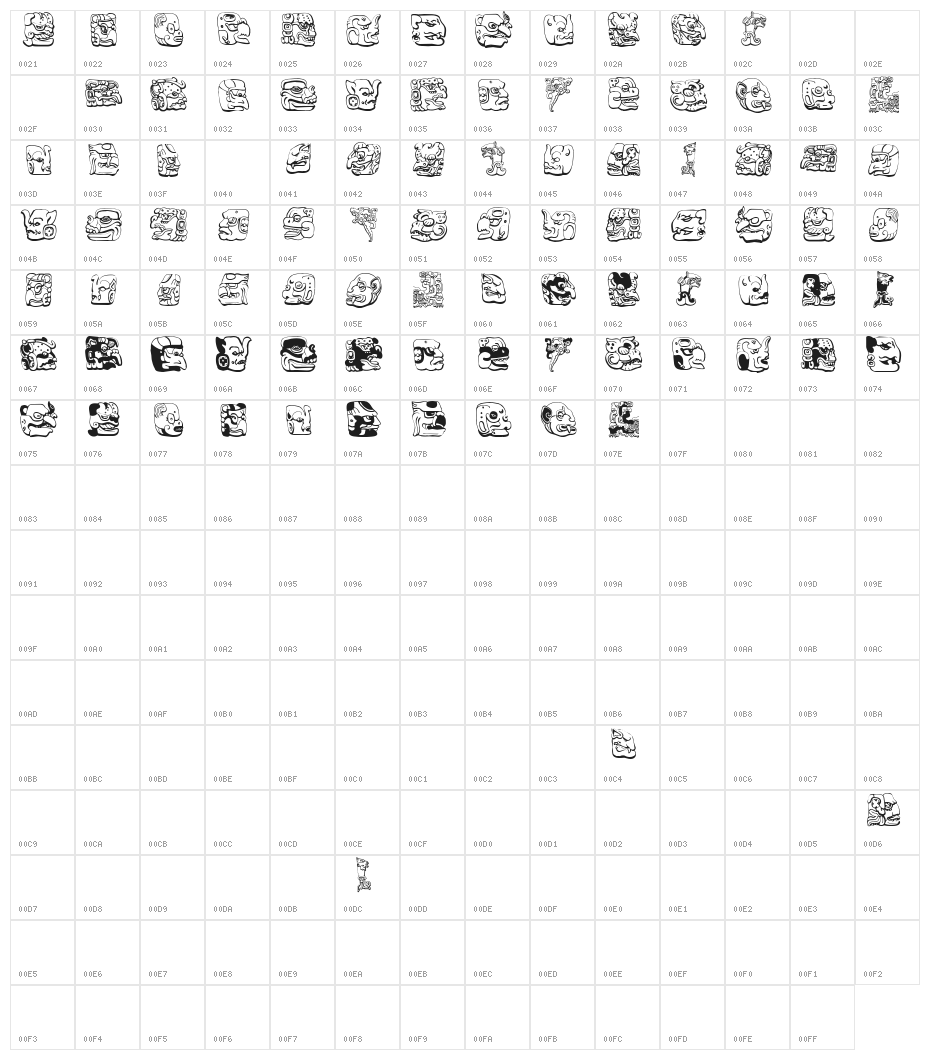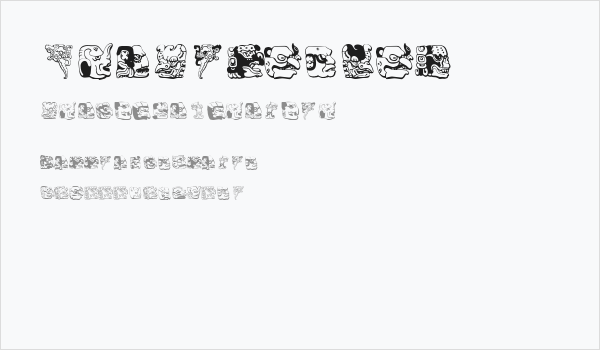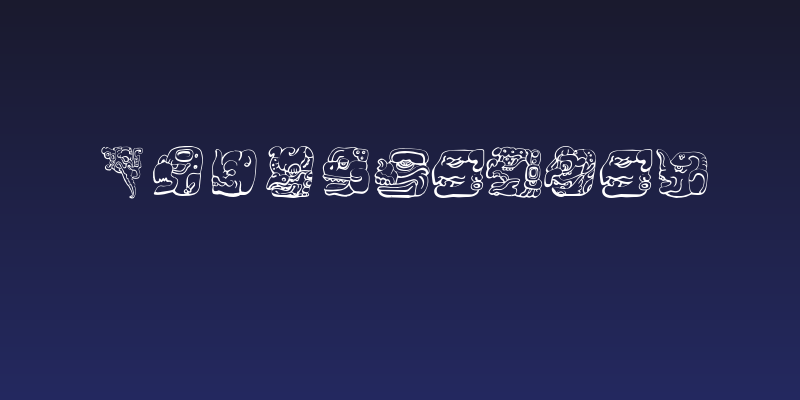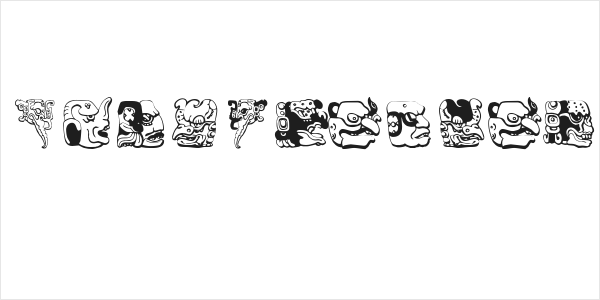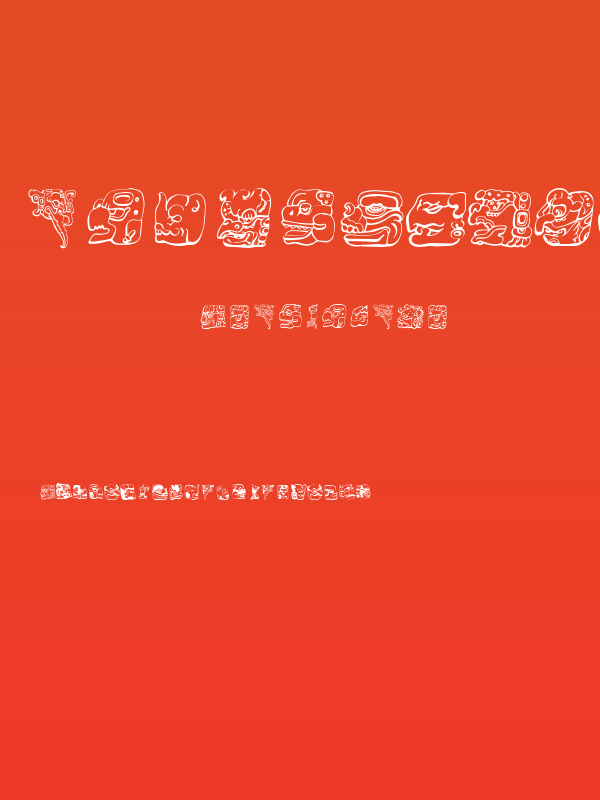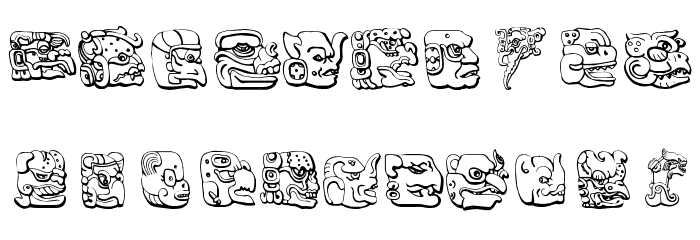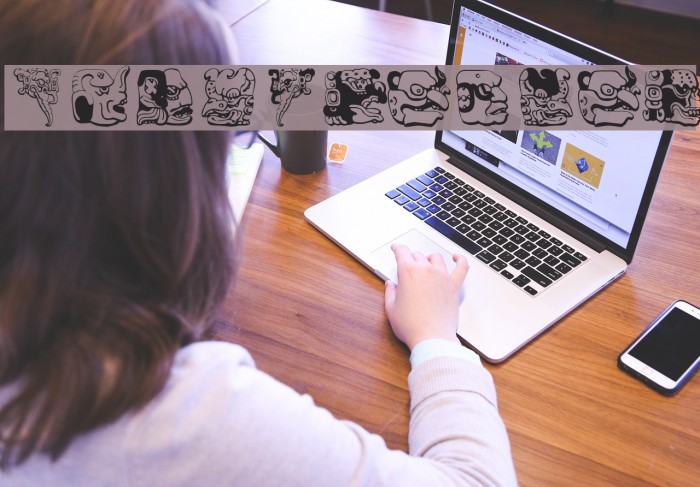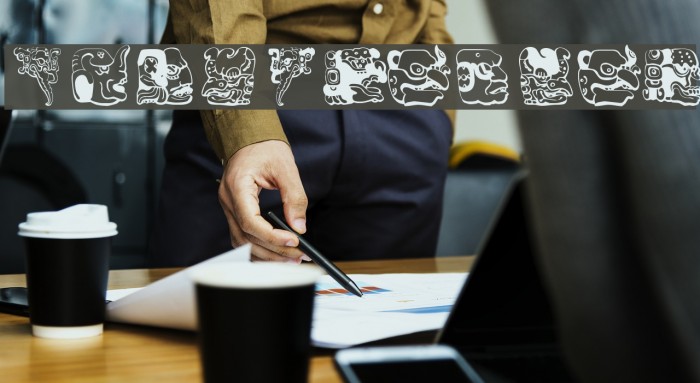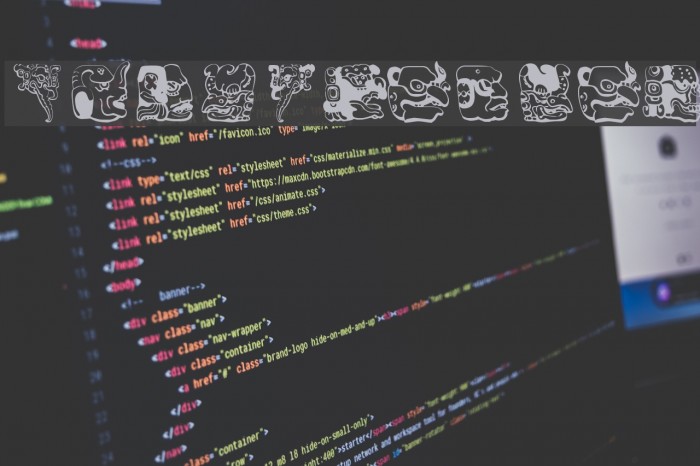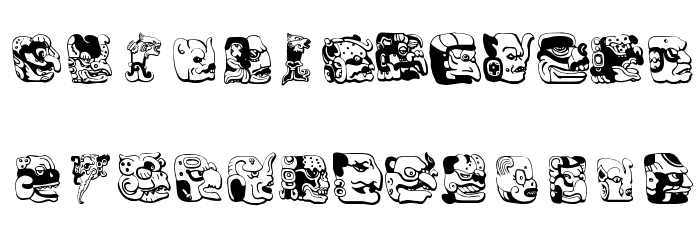
PreColumbus Font
PreColumbus Description
This font is a highly decorative and intricate design inspired by ancient Mesoamerican glyphs. Each character is a unique piece of art, featuring complex patterns and motifs that resemble traditional carvings and symbols. The font is rich in detail, with each letter incorporating elements that evoke a sense of history and cultural significance. The characters are bold and striking, making them ideal for projects that require a strong visual impact. The overall aesthetic is both mysterious and captivating, drawing the viewer into a world of ancient storytelling and symbolism.